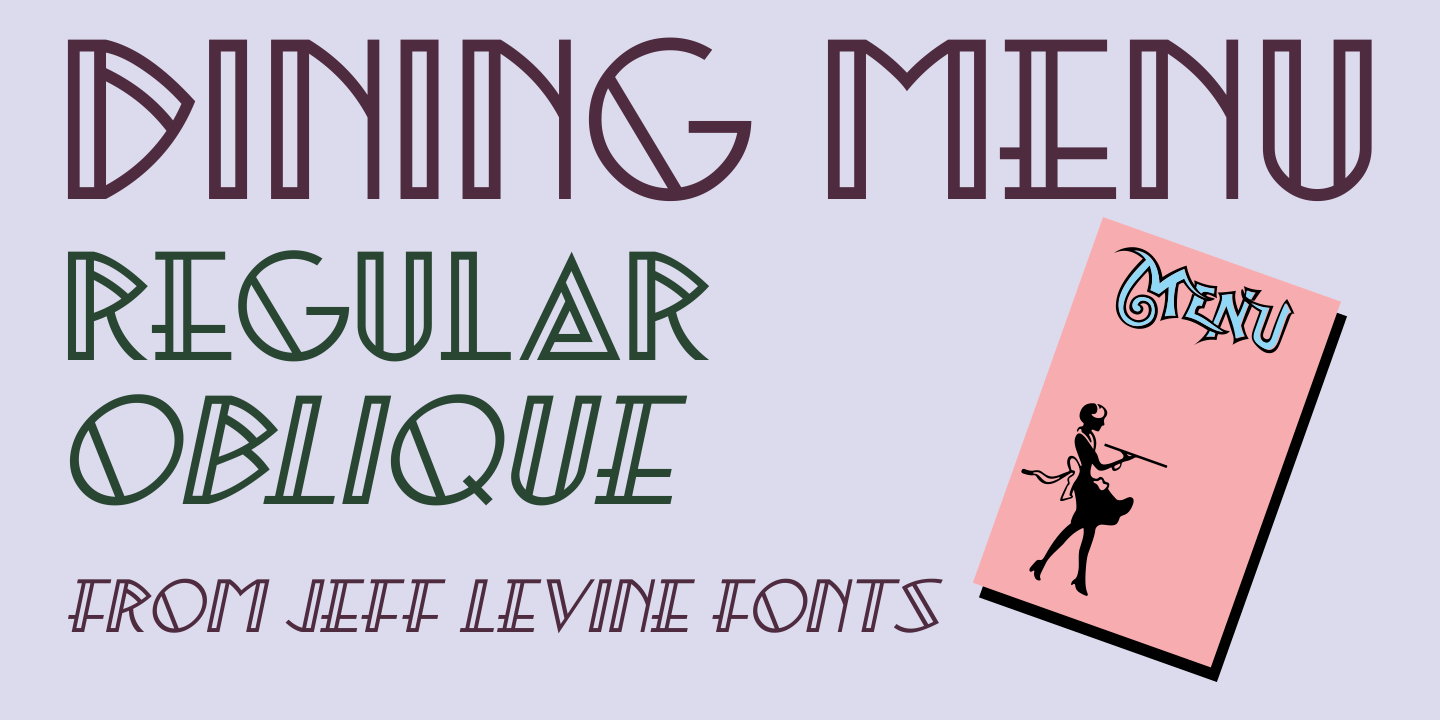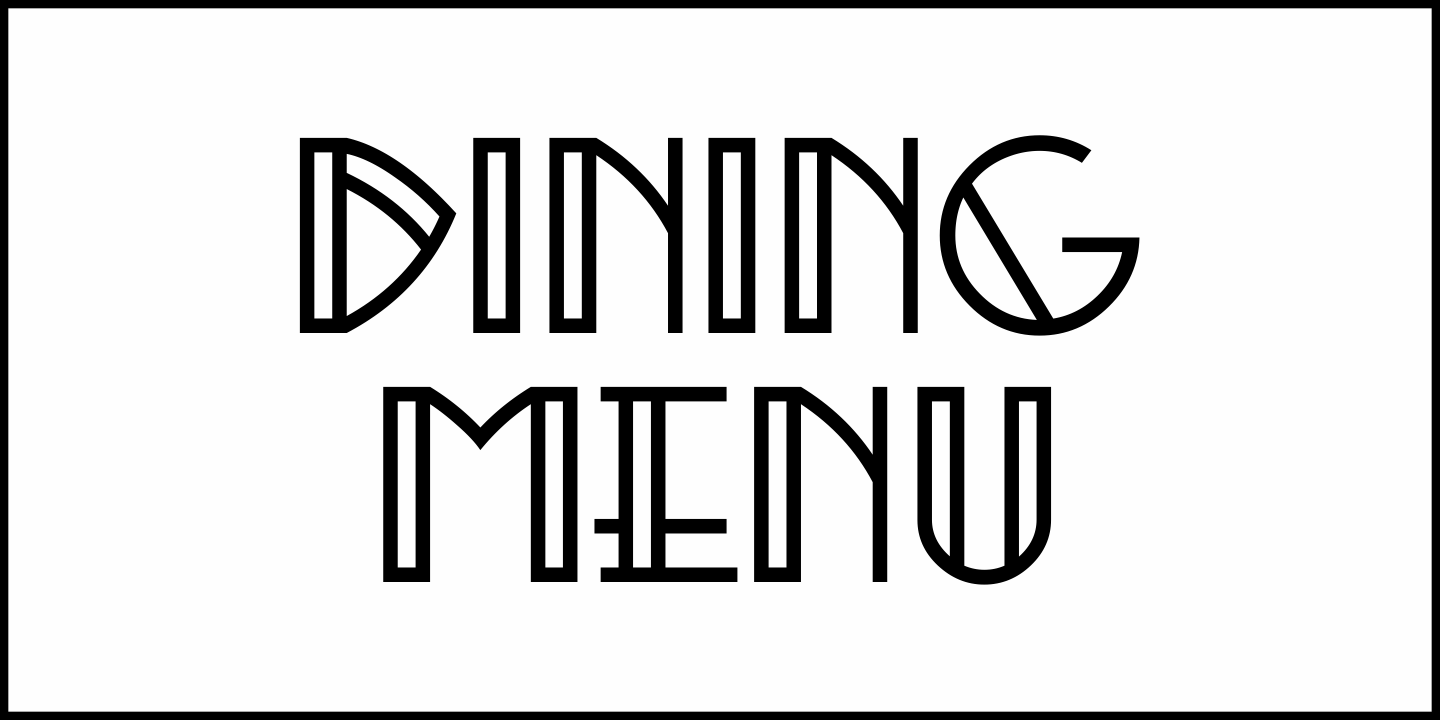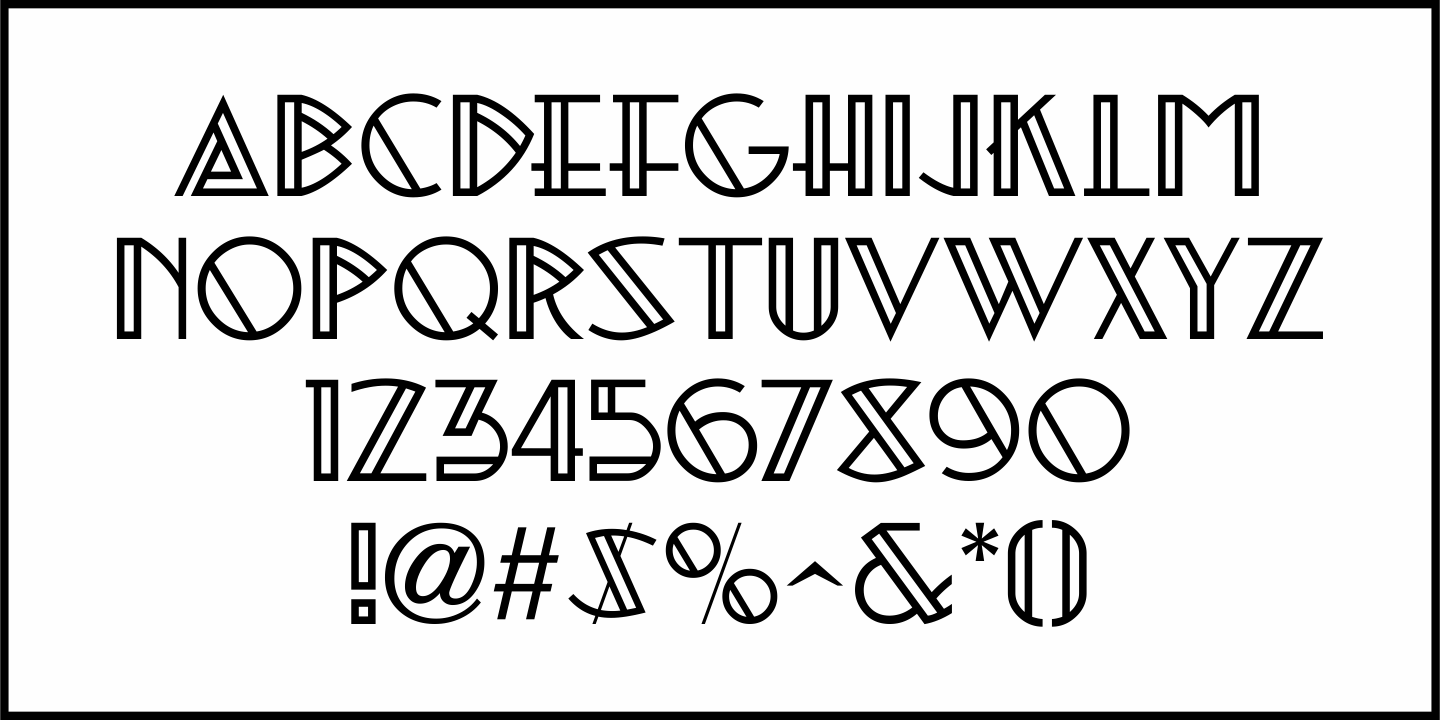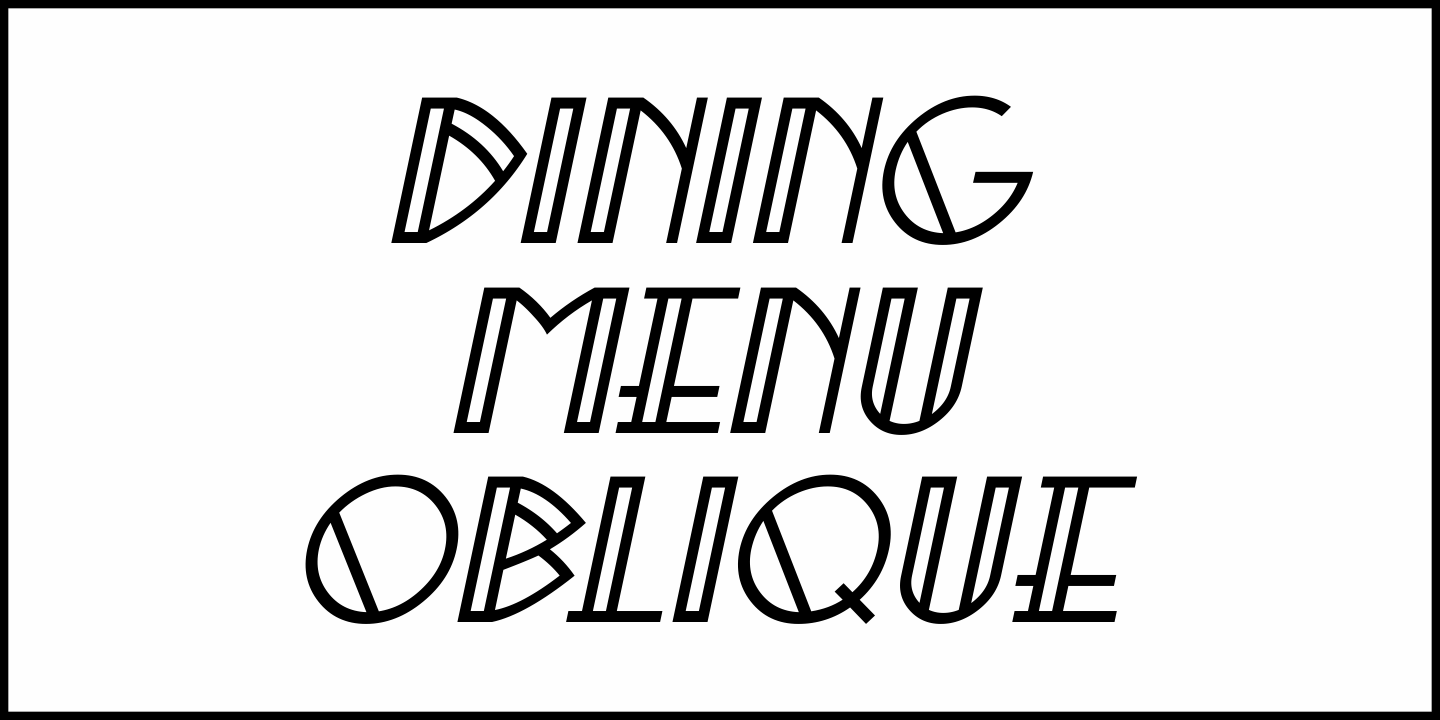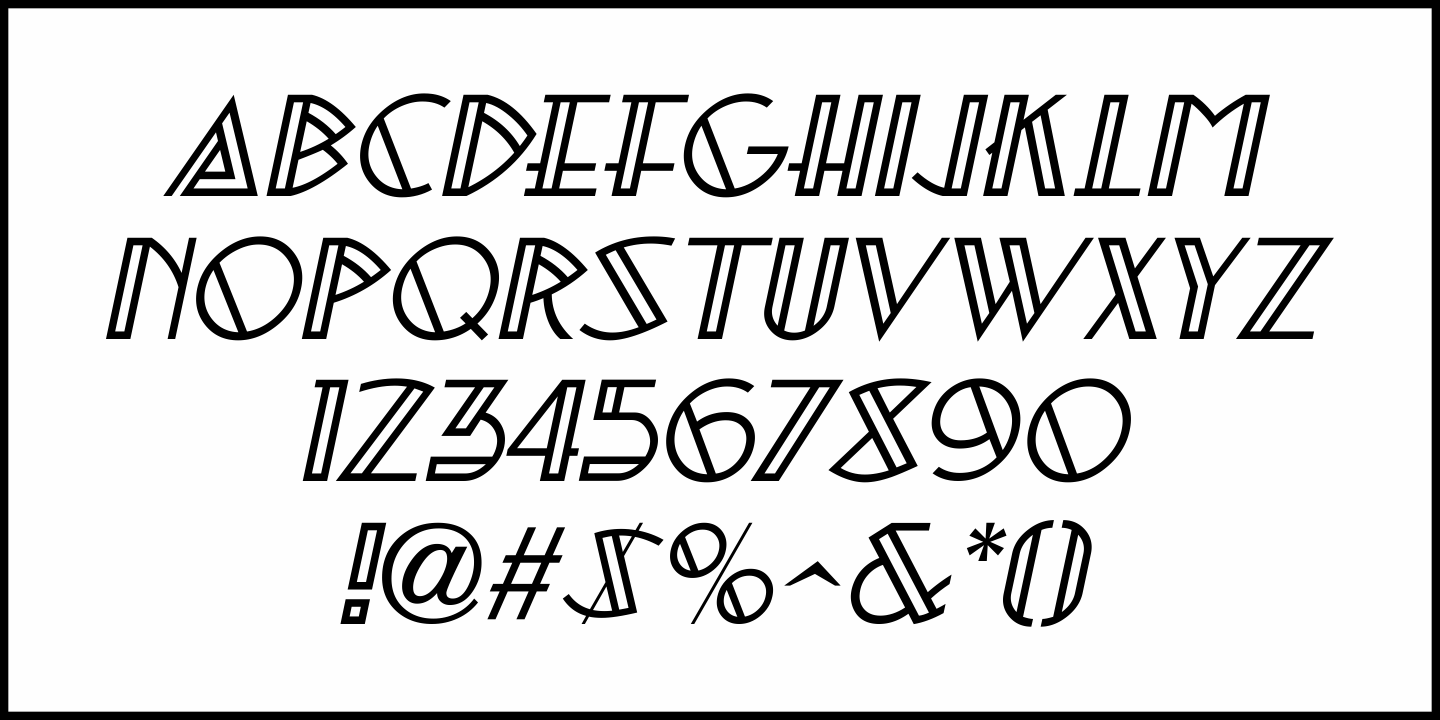
Dining Menu
A 1930s menu from a restaurant with locations in both Long Island and Miami Beach called the 'Roadside Rest” sported on its cover some very unusual Art Deco outline lettering.
Adapted and slightly modified for typographic purposes, the font is now available as Dining Menu JNL in both regular and oblique versions.